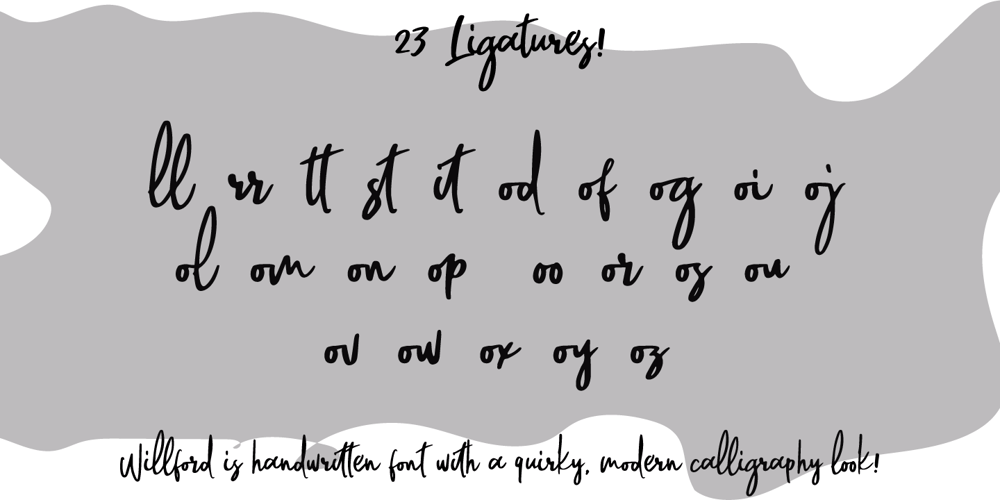
Willford Brush Font Family was designed by Ferdiansyah and published by ijemrockart. Willford Brush contains 1 styles and family package options. Wilford Brush is a handmade brush style font with stunning characters. Ideal for logos, name tags, handwritten quotes, product packaging, merchandising, social media & greeting cards. It contains a full set of lower & uppercase letters, a large range of punctuation, numerals, and multilingual support. The font also contains several alternatives for lowercase characters, accessible in the Adobe Illustrator Glyphs panel, or under Stylistic Alternates in the Adobe Photoshop OpenType menu. But if you don’t have any opentype specific software, you can still use Wilford Brush as it is with its standard lowercase and uppercase letters. If you have any question, don’t hesitate to contact me by email ijemrealmad54@gmail.com Thank you!